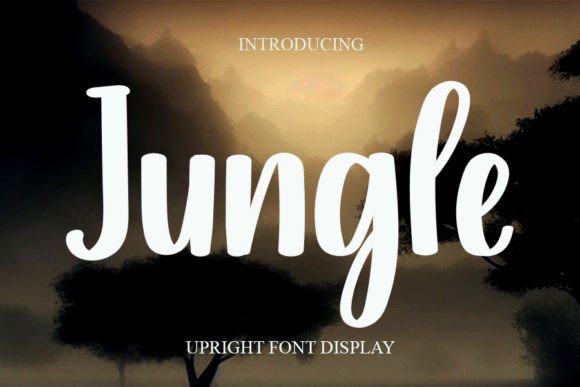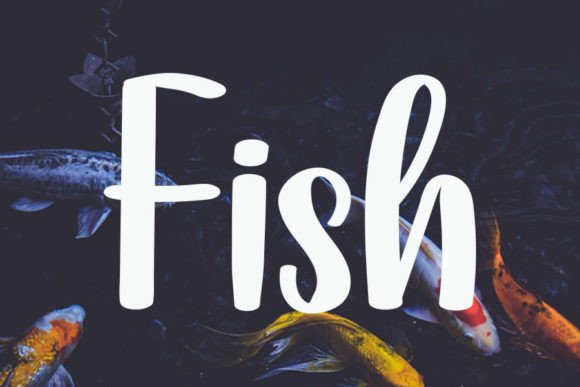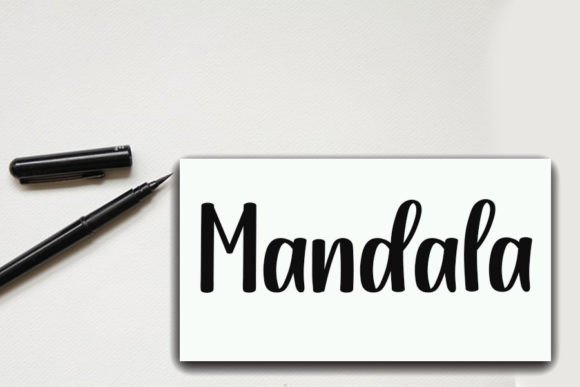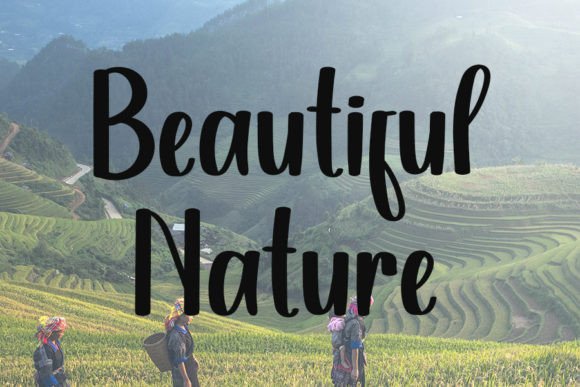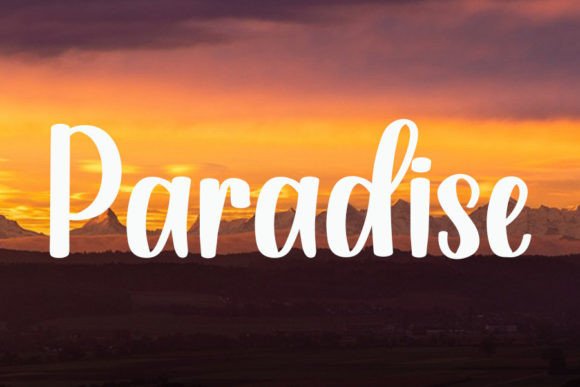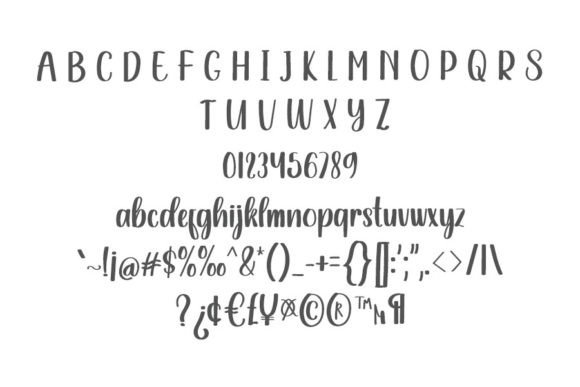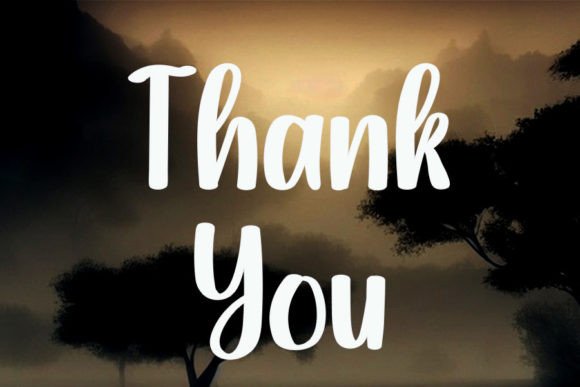
Jungle Font
About Jungle Font
Jungle is a cool and modern handwritten font designed to bring life and sophistication to your creative work. It combines the charm of traditional calligraphy with a contemporary twist, offering a smooth, spotless form that feels both elegant and approachable. Whether you’re designing for digital or print, the Jungle font download is your perfect choice for standout typography.
Its character set is carefully crafted to deliver excellent readability while maintaining artistic flair. Jungle’s strokes are not too thin or too thick—just the right balance for a wide range of design uses. From branding to social media content, this font easily adapts to any context while keeping your design fresh and stylish.
Its clean script style makes it suitable for both personal and commercial projects that require a balance of formality and creativity.
• Style: Modern handwritten script
• Includes: Uppercase, lowercase, numbers, punctuation
The Jungle font download is ideal for designers looking for a fresh handwritten look that isn’t overly ornate. Its structure is neat yet lively, making it ideal for modern branding and content that needs personality without compromising legibility. With its dynamic strokes and impeccable flow, Jungle ensures your message stands out while feeling warm and engaging.